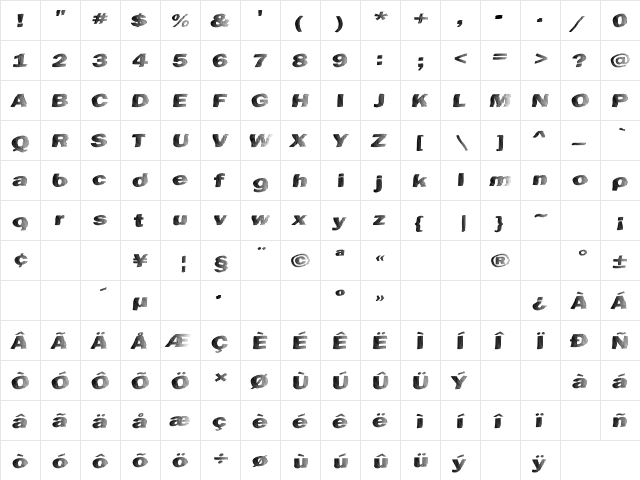
Chefs Slice Novice Regular
Design Context for Chefs Slice Novice Typeface
Chefs Slice Novice is a composed and adaptable typeface that performs quietly and consistently across a wide range of design contexts.